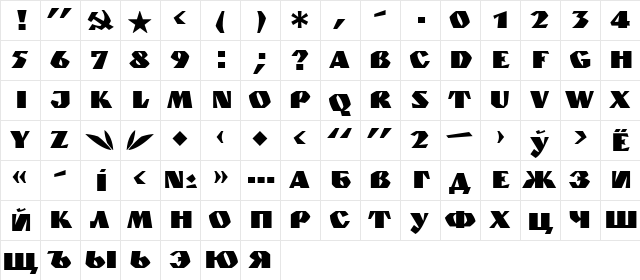
Granit Plain
Design Context for Granit Typeface
Granit is a composed and adaptable typeface that performs quietly and consistently across a wide range of design contexts.